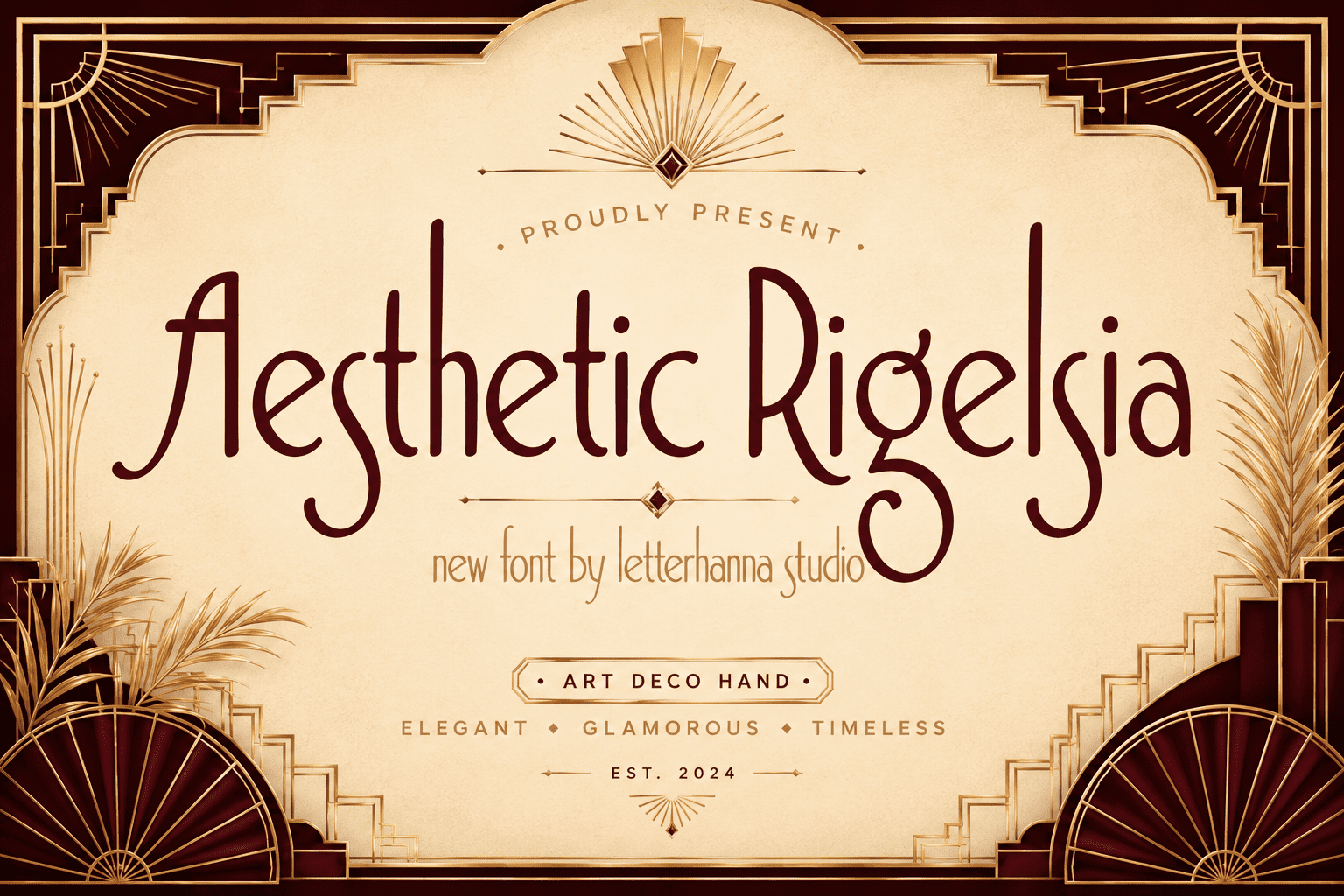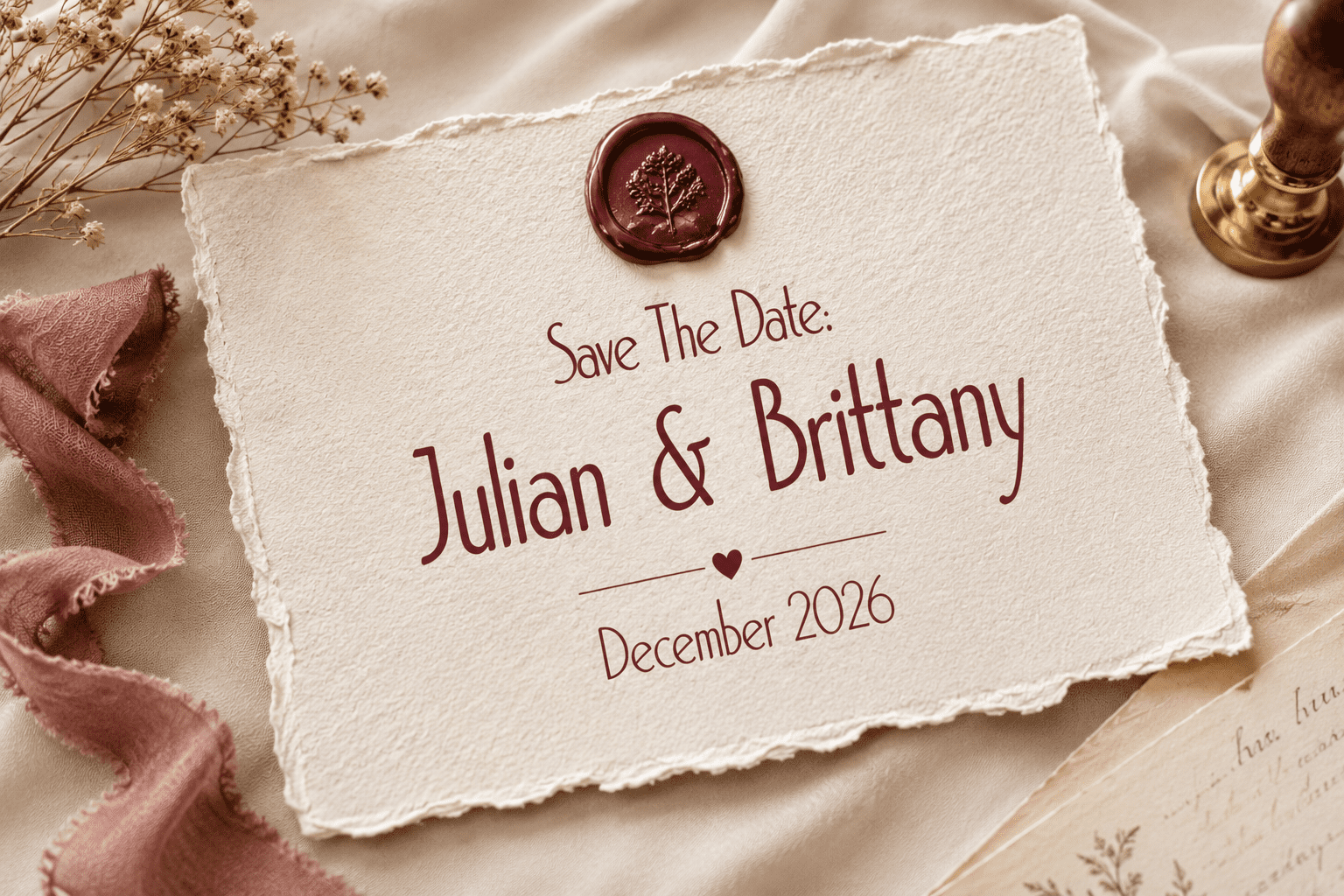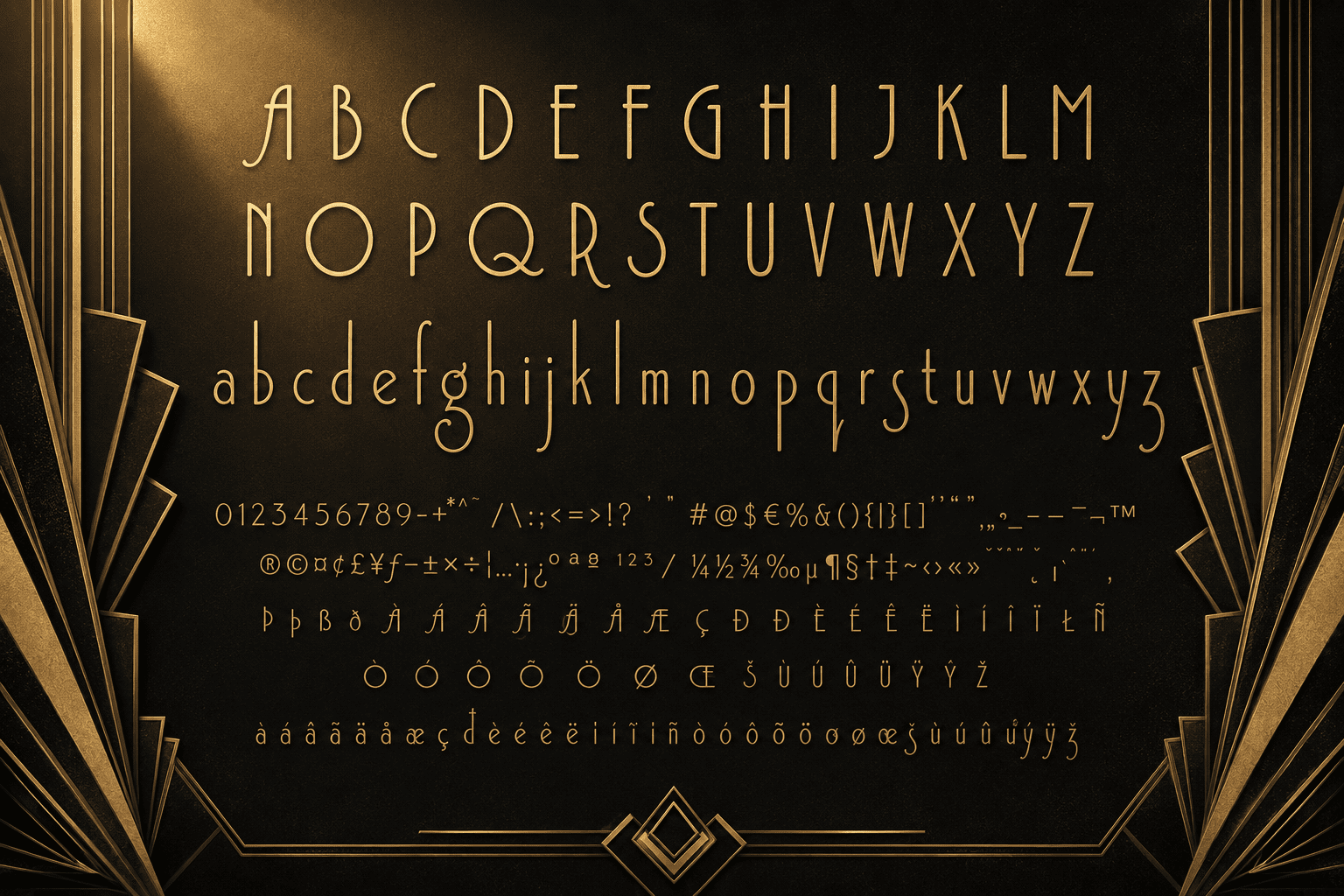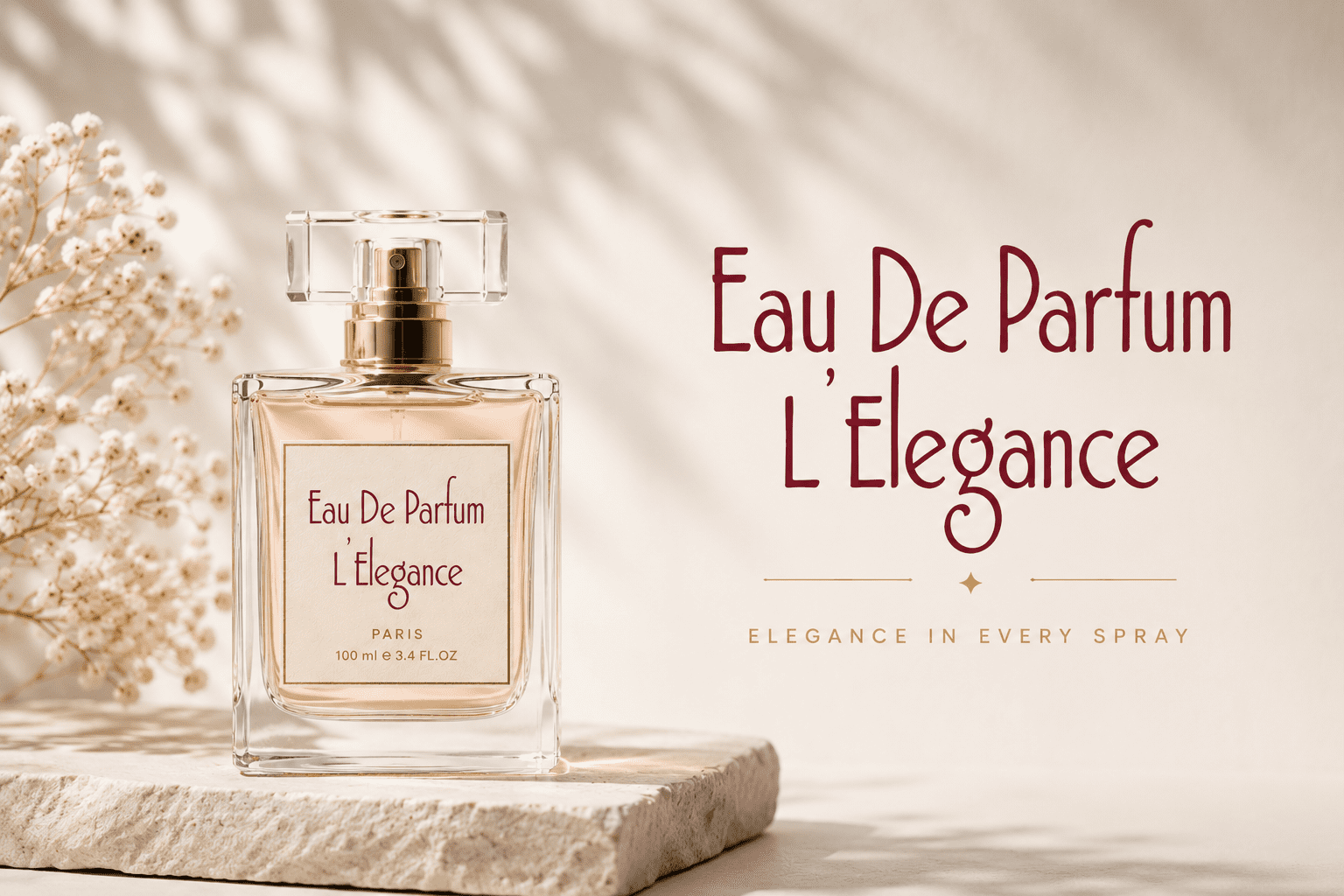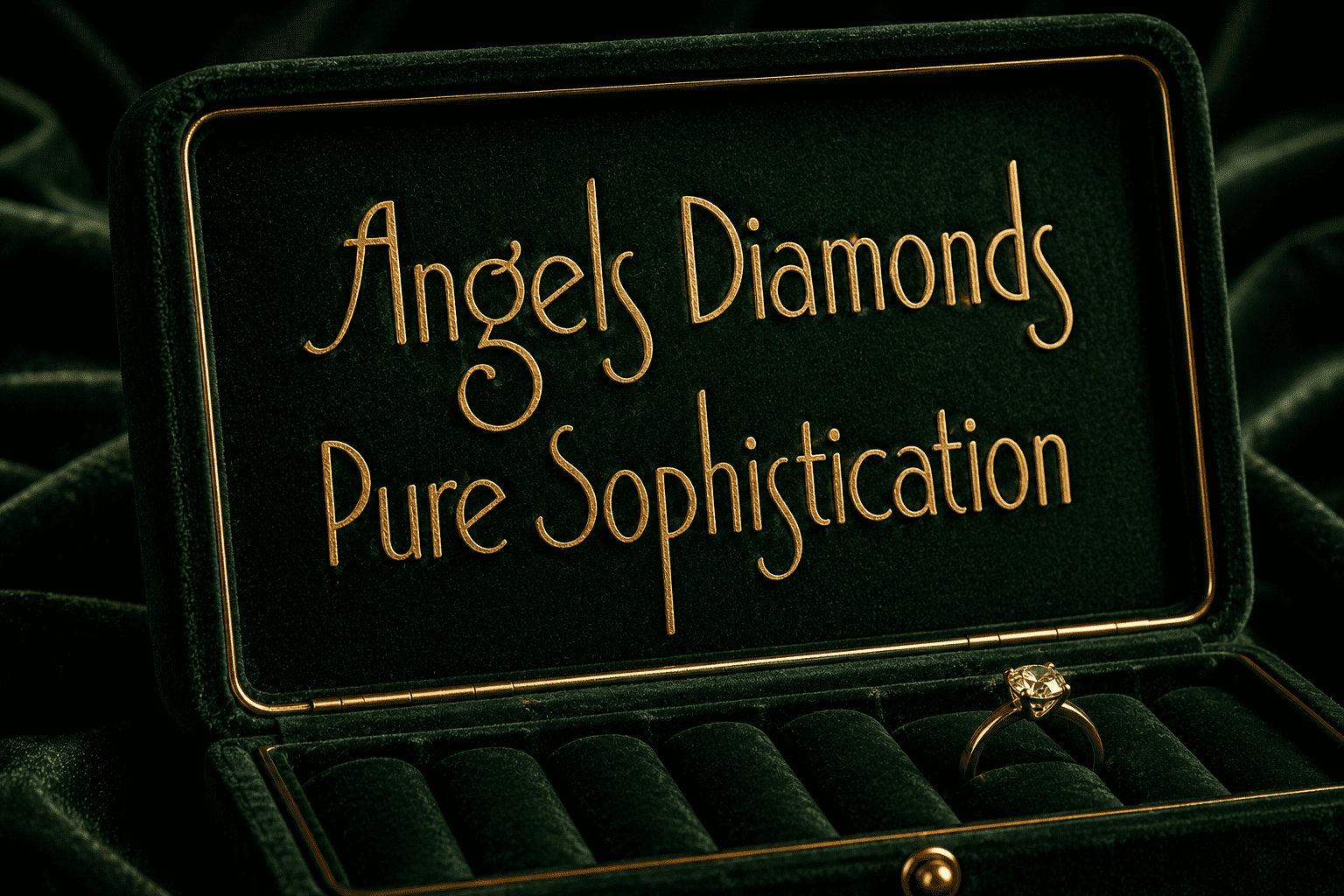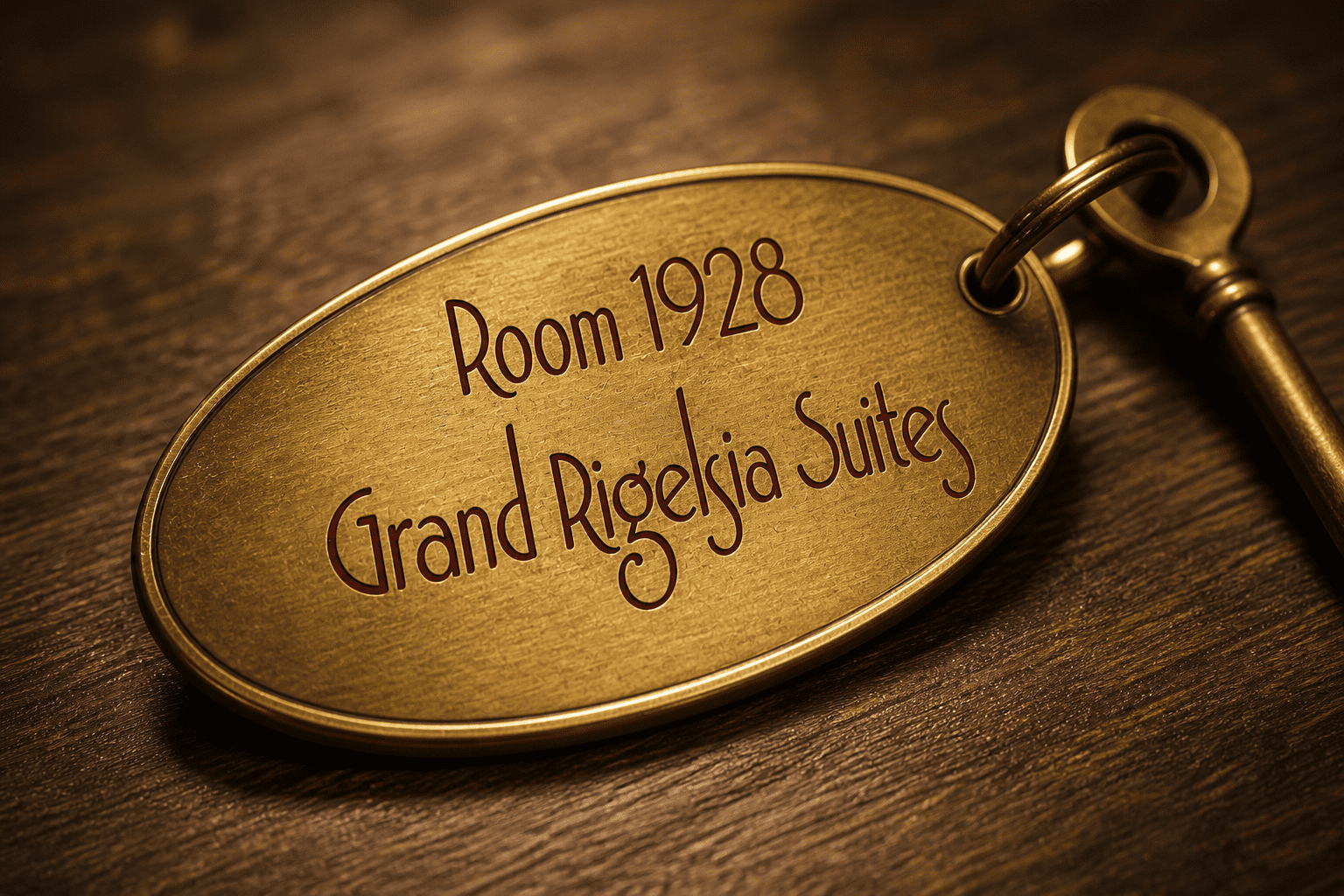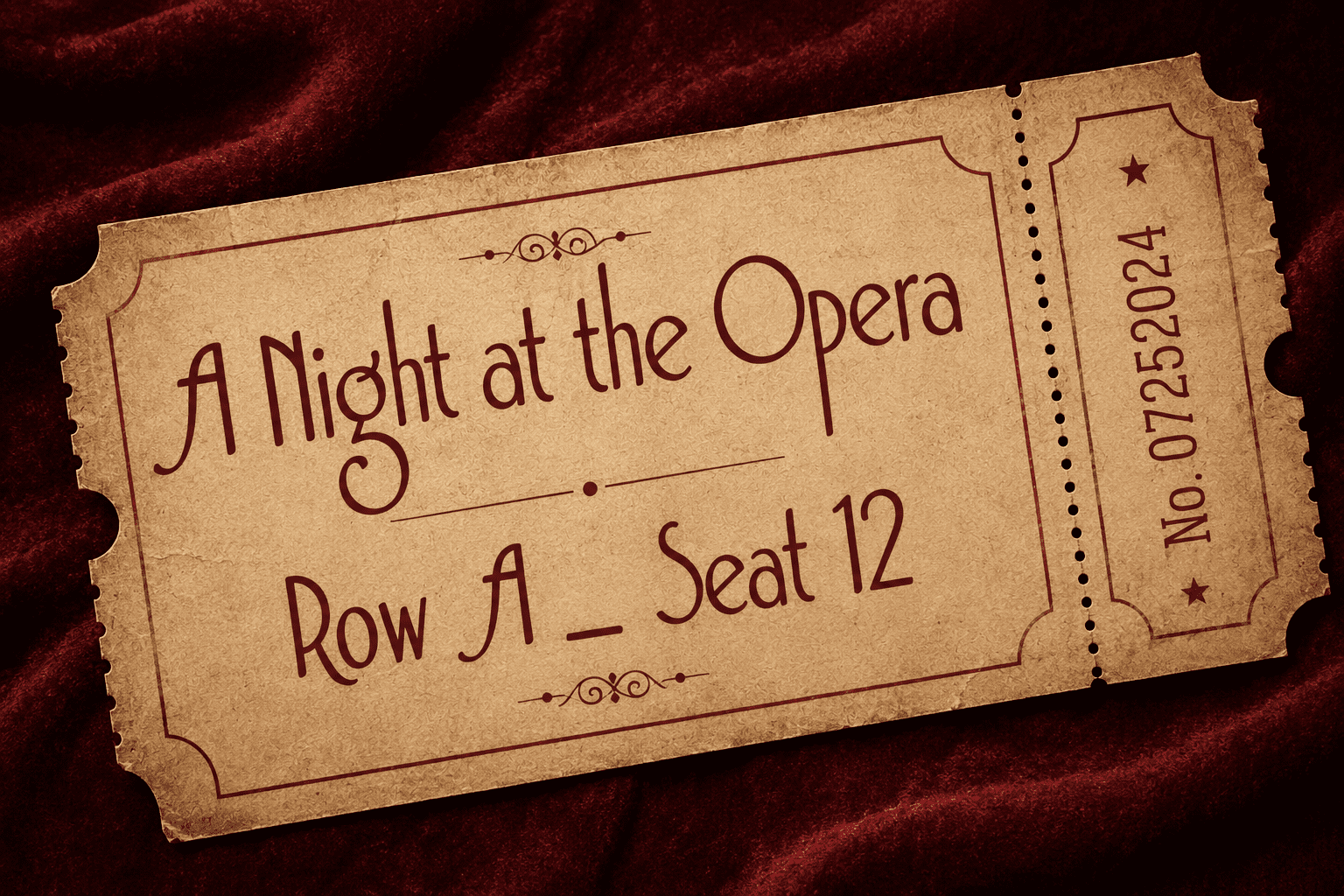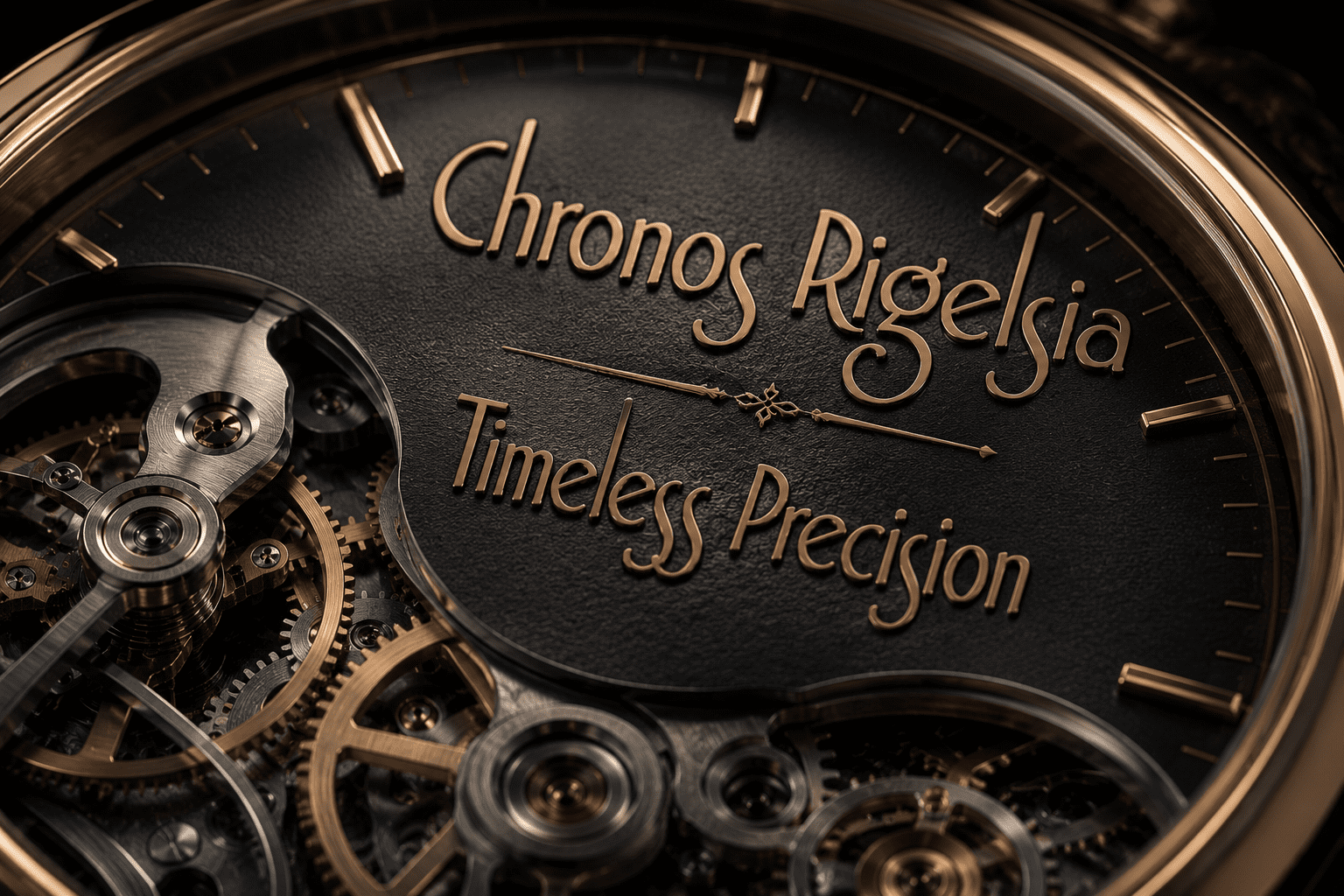
There’s a reason the 1920s still feel like the most glamorous era in history.
It wasn’t the champagne. It wasn’t the parties. It was the design โ bold, geometric, unapologetically luxurious. Every poster, every logo, every headline dripped with confidence.
That era had a visual language. And now, you can speak it.
Introducing Aesthetic Rigelsia โ a handcrafted font that translates the golden age of Art Deco into every project you touch. Its signature ultra-tall verticals and sweeping geometric curves don’t just look beautiful. They command attention. They signal quality before a single word is read.
This isn’t a font you use when you want to “look nice.”
This is the font you use when you want to look unforgettable.
Use it on a wedding invitation and guests will feel like they’re being summoned to something magnificent. Drop it on a brand logo and your clients will suddenly look twice. Place it on a product label and people will assume the price is higher than it is โ because it looks like it belongs on a shelf in Paris.
Aesthetic Rigelsia was built for designers, creatives, and brand builders who understand that typography isn’t decoration. It’s the first impression. It’s the trust signal. It’s the difference between scroll past and stop and stare.
One font. Every project elevated.
Whether you’re designing luxury packaging, editorial spreads, event branding, or a personal project that deserves to feel special โ Aesthetic Rigelsia delivers the kind of visual authority that used to take years of design experience to fake.